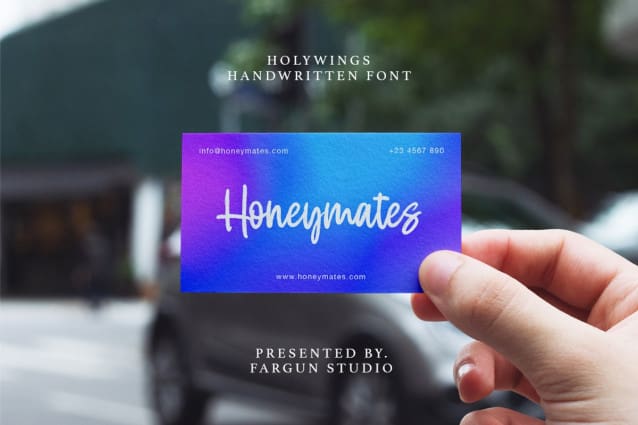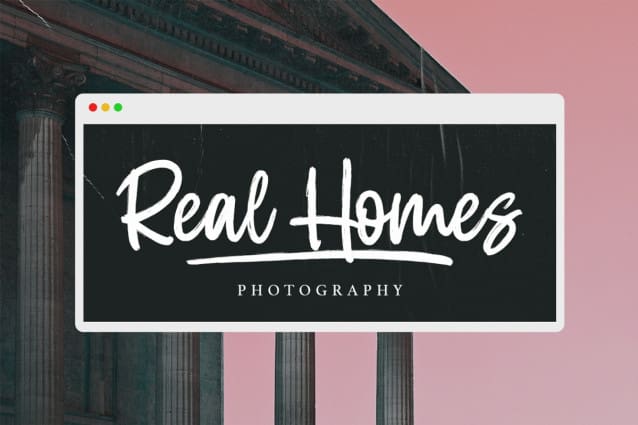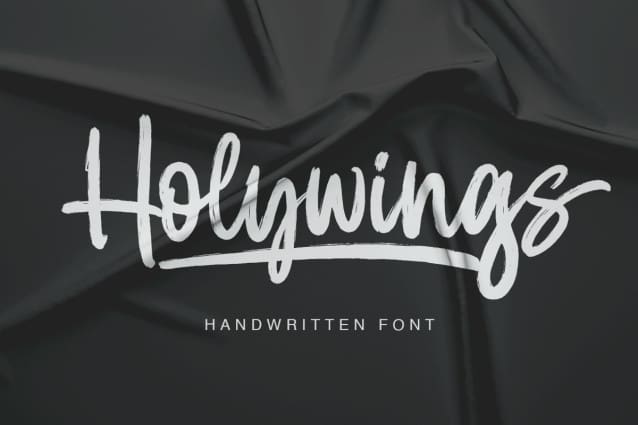
Holywings Brush Font
Holywings Brush Font, a handwritten font with quick drying strokes and a distinctive style. Perfect for branding projects, homeware designs, product packaging or simply as a stylish text overlay for any background image or poster.